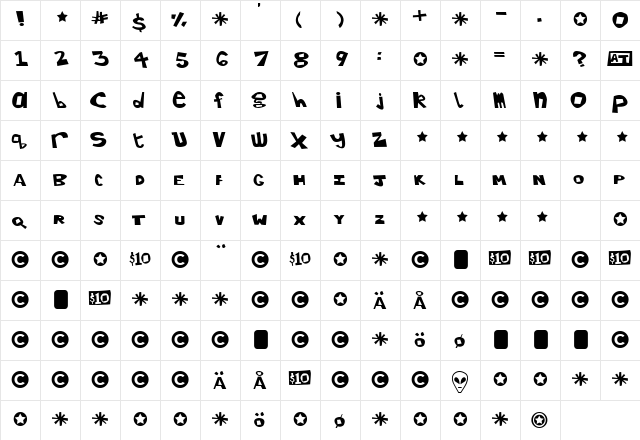
Girl77 Regular
Design Context for Girl77 Typeface
Girl77 is a composed and adaptable typeface that performs quietly and consistently across a wide range of design contexts.